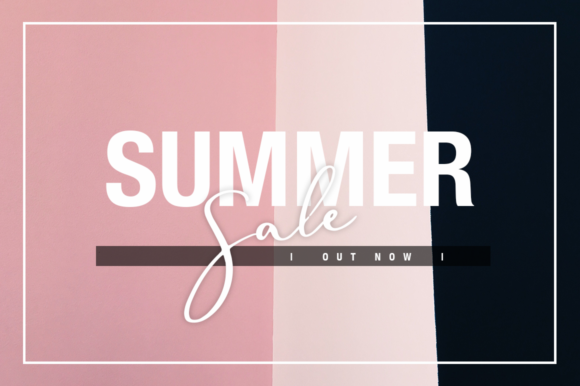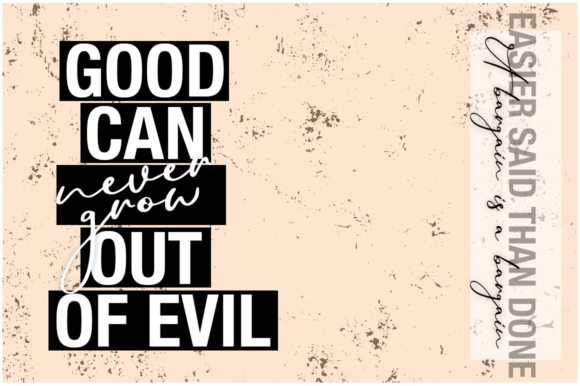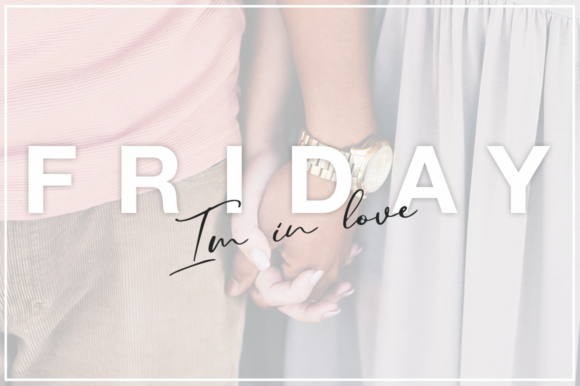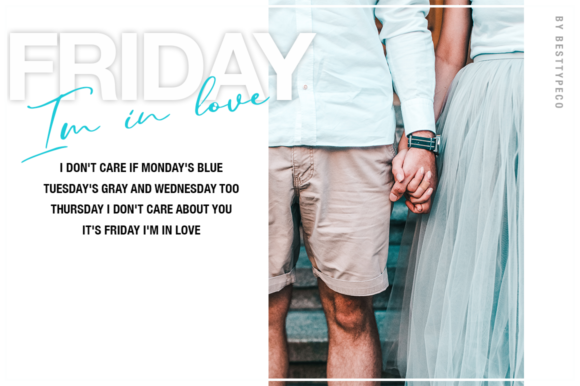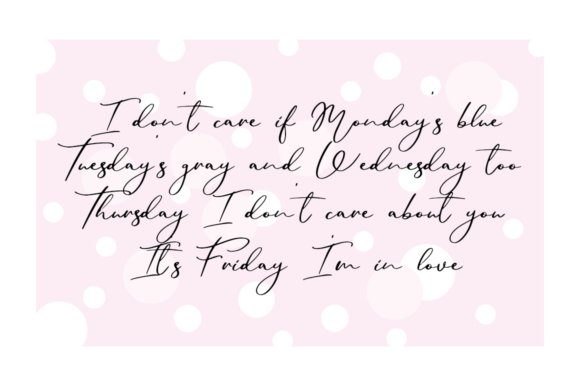
HomeScript FontsAmber Rose Font Script Fonts Amber Rose Font FacebookXPinterestWhatsApp Amber Rose Font Poster 2 Amber Rose Font Poster 3 Amber Rose Font Poster 4 Amber Rose Font Poster 5 Amber Rose Font Poster 6 About Amber Rose Font Amber Rose is a freshly made script that will turn any design idea into a true standout. DOWNLOAD ON CREATIVE FABRICAThis font is sold and delivered by Creative Fabrica. Font Canyon may earn a commission if you buy through this link. People also explored Sister Pamella Font Romantisch Font Kowhom Fu Font Littleenjoy Font White Glue Duo Font Colbey Medium Font Laffisya Font Golding Signature Font Christmas Evernight Font 303 0 TagsAmber Rose Font Previous articlePower of Love FontNext articleSanty Fergason Font LEAVE A REPLY Cancel reply Comment: Please enter your comment! Name:* Please enter your name here Email:* You have entered an incorrect email address! Please enter your email address here Website: Save my name, email, and website in this browser for the next time I comment. Personal Use Free Letter Clips Personal Use Free Read more about this font Knucklehead Personal Use Free Read more about this font Quickline Personal Use Free Read more about this font Zojihun Personal Use Free Read more about this font BLOG The 10 Best Handwriting Fonts to Add Personality to Your Designs 10 of the Best Handwriting Fonts for Adding Personality to Your Designs There will undoubtedly be no other better choice than handwriting fonts to give... Modern Sans-Serif Fonts That Brands Love in 2025 Fonts That Capture the Spirit of New York City Free vs Paid Fonts: Why Investing in Premium Fonts Is Worth It